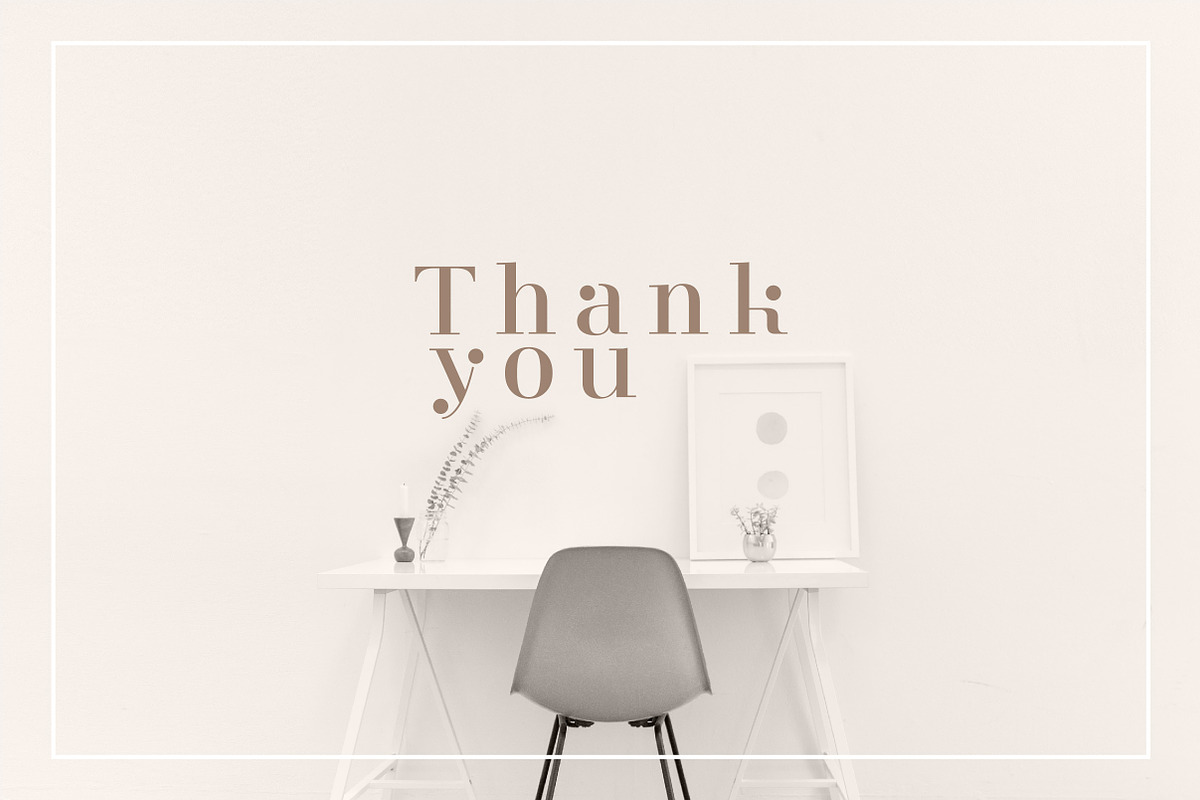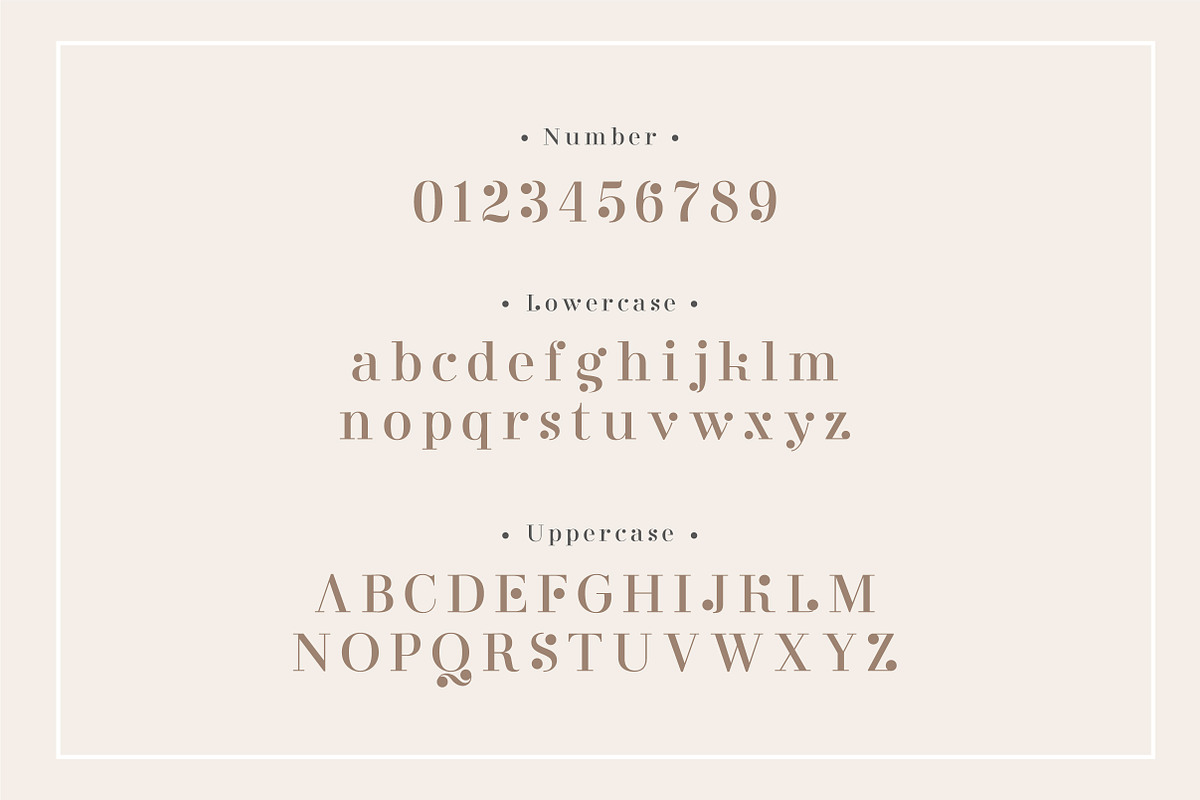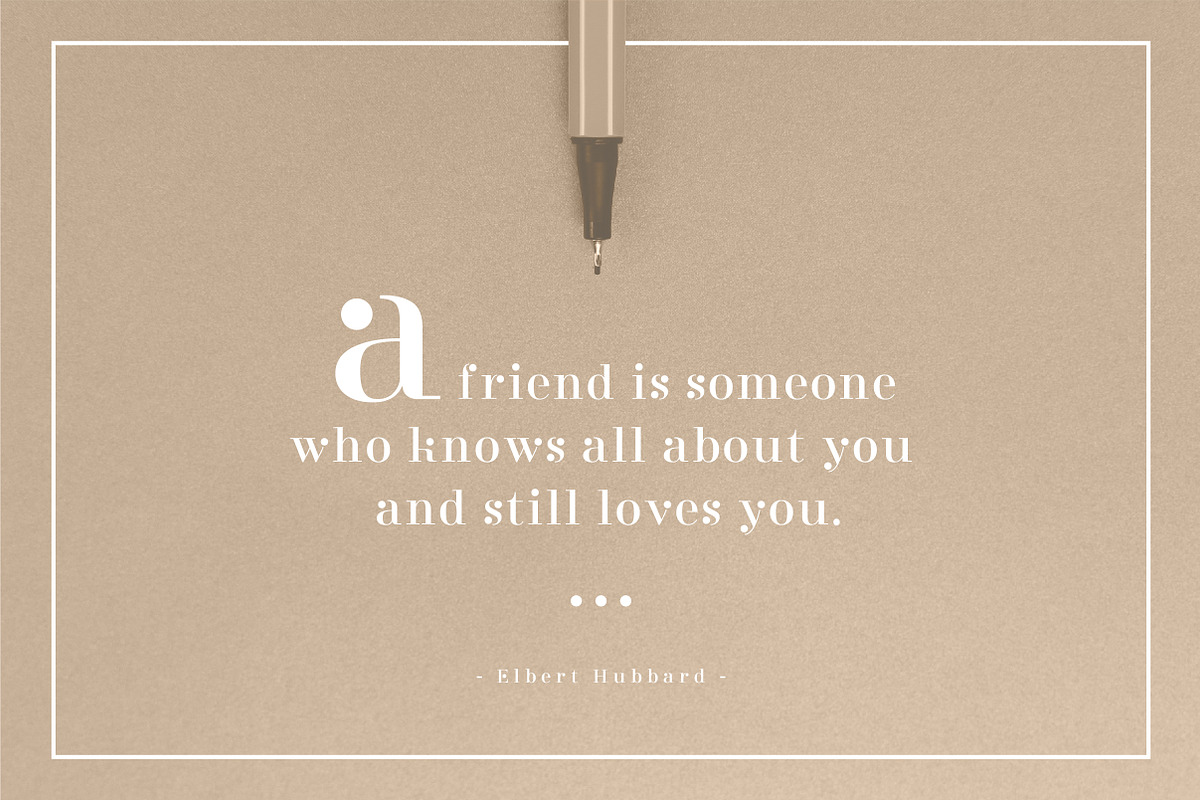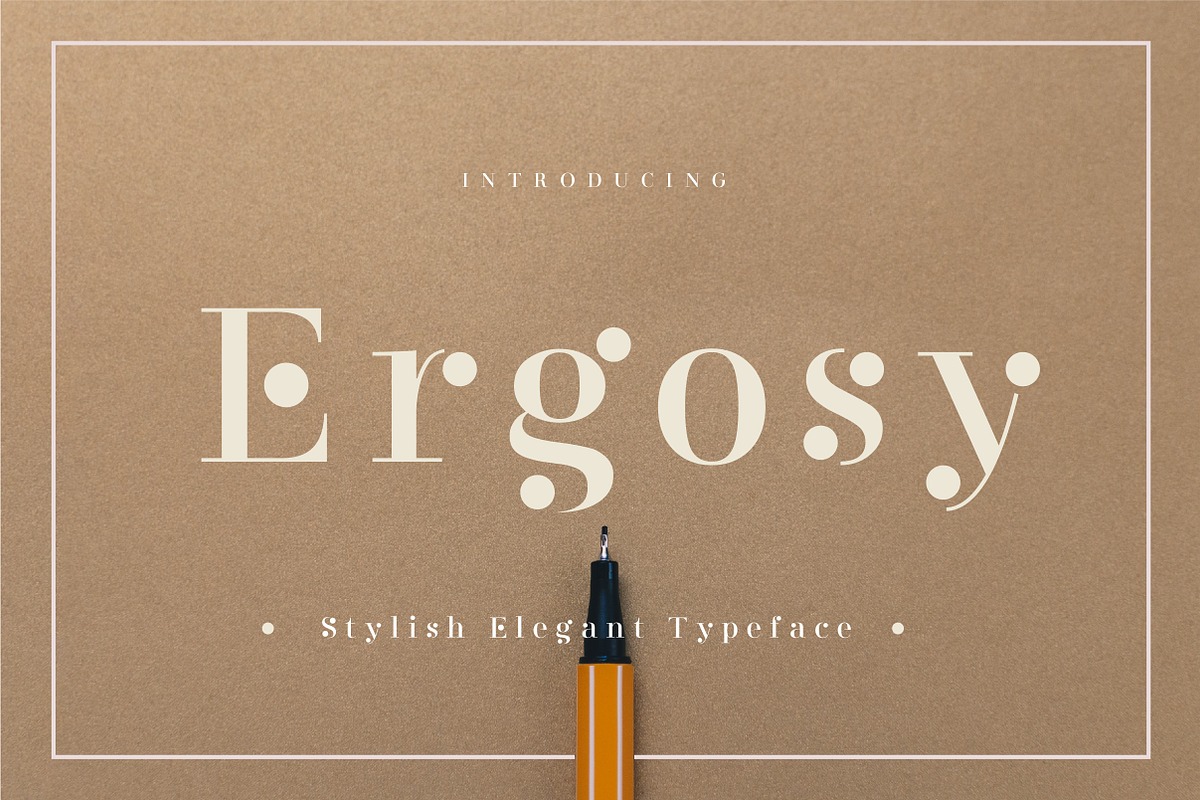
Ergosy
Ergosy. Elegant alphabet letters font and number. Typography modern classic lettering minimal fashion fonts designs. projects to the highest level, be it branding, headings, wedding, digital, movie, invitations, signatures, logos, labels, and much more! . What's Included : Ergosy: Regular (EPS/OTF/TTF/WOFF/WOFF2/SVG/EOT) . Hope you enjoy with our font! :)